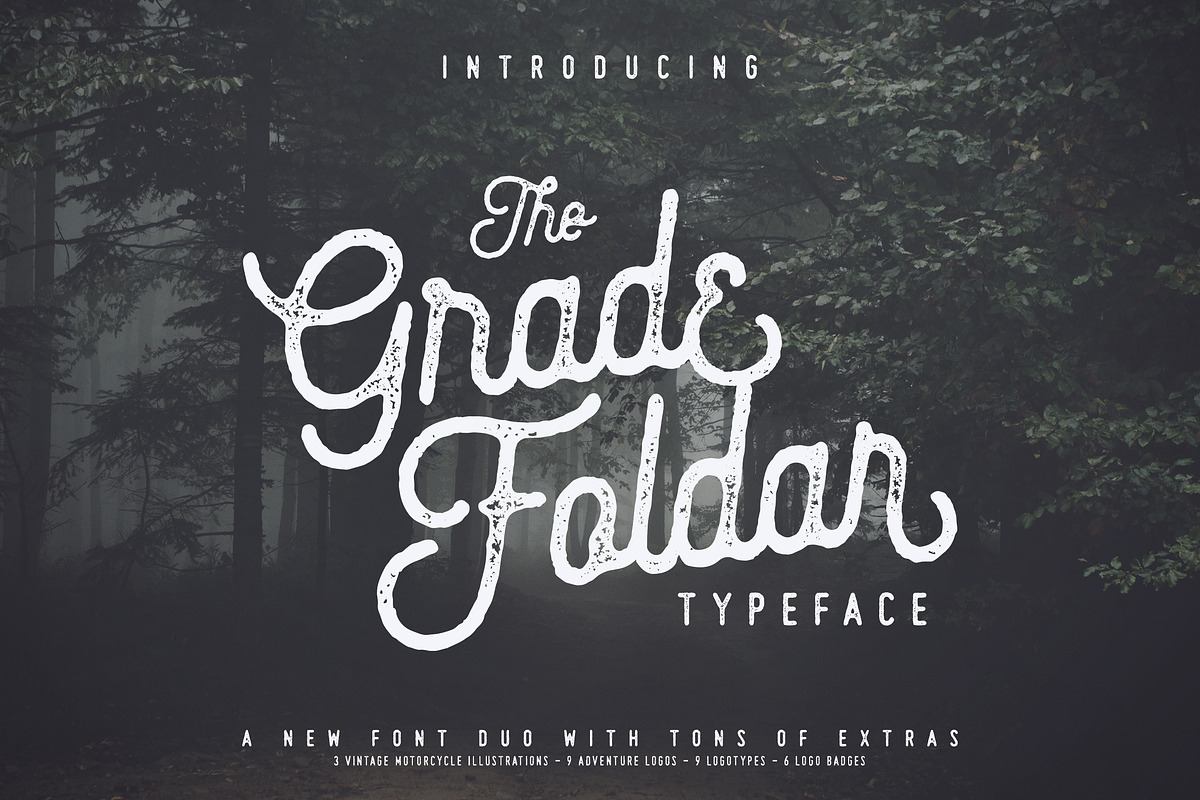
The Gradefoldar (2 fonts + 27 Bonus) Free Download
The Gradefoldar (2 Fonts + 27 Bonus) Free Download is a bold and artistic font package that combines expressive hand-drawn typography with a rich set of creative extras. Featuring two dynamic fonts—typically a script and a display style—plus 27 bonus design elements, this bundle is perfect for branding, posters, apparel, music covers, packaging, and anything that needs a handcrafted, edgy vibe.
The typefaces in The Gradefoldar (2 Fonts + 27 Bonus) Free Download are loaded with personality, showcasing rough textures, energetic strokes, and a rebellious feel that’s great for modern, creative projects. The included bonus elements—like swashes, doodles, and icons—make it easy to build custom compositions that stand out.